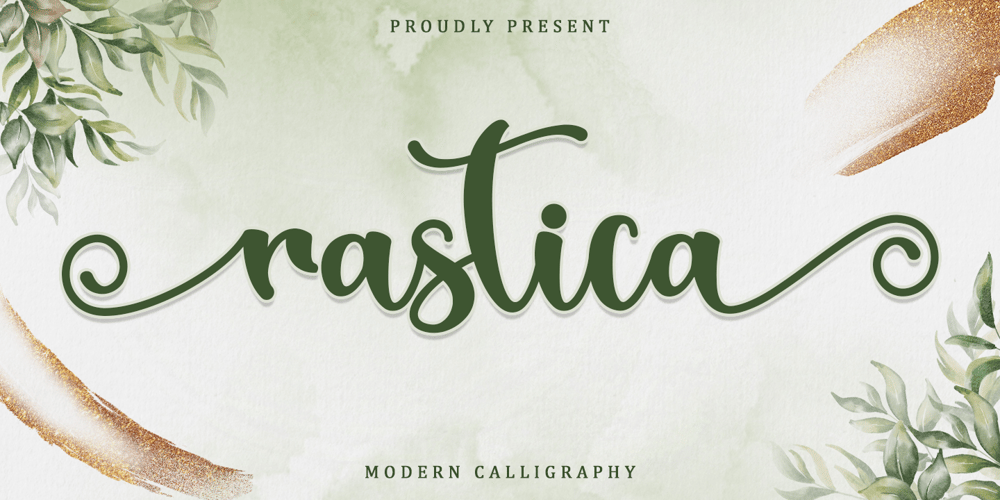
Rastica Font Family was designed by Alif Ryan Zulfikar and published by Sakha Design. Rastica contains 1 styles and family package options. Rastica is a modern and incredibly whimsical handwritten font. Not too thin and not too thick, balanced and varied, Rastica was designed to enhance the beauty of your projects. This font is PUA encoded which means you can access all of the glyphs and swashes with ease!